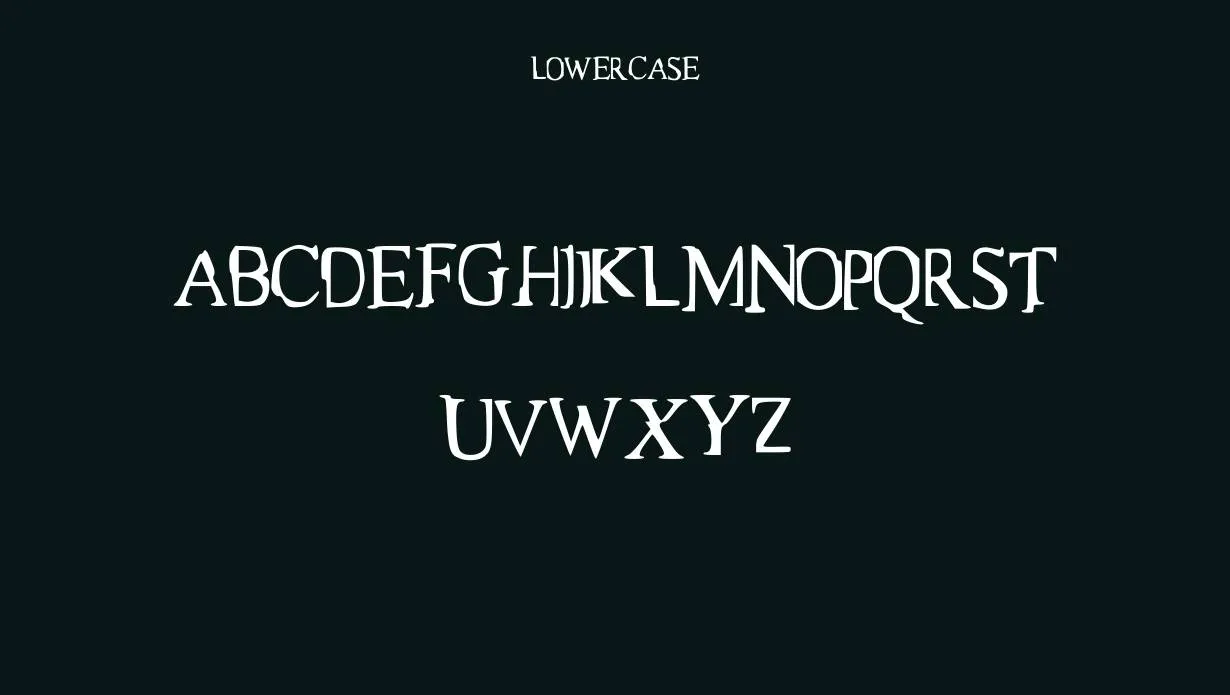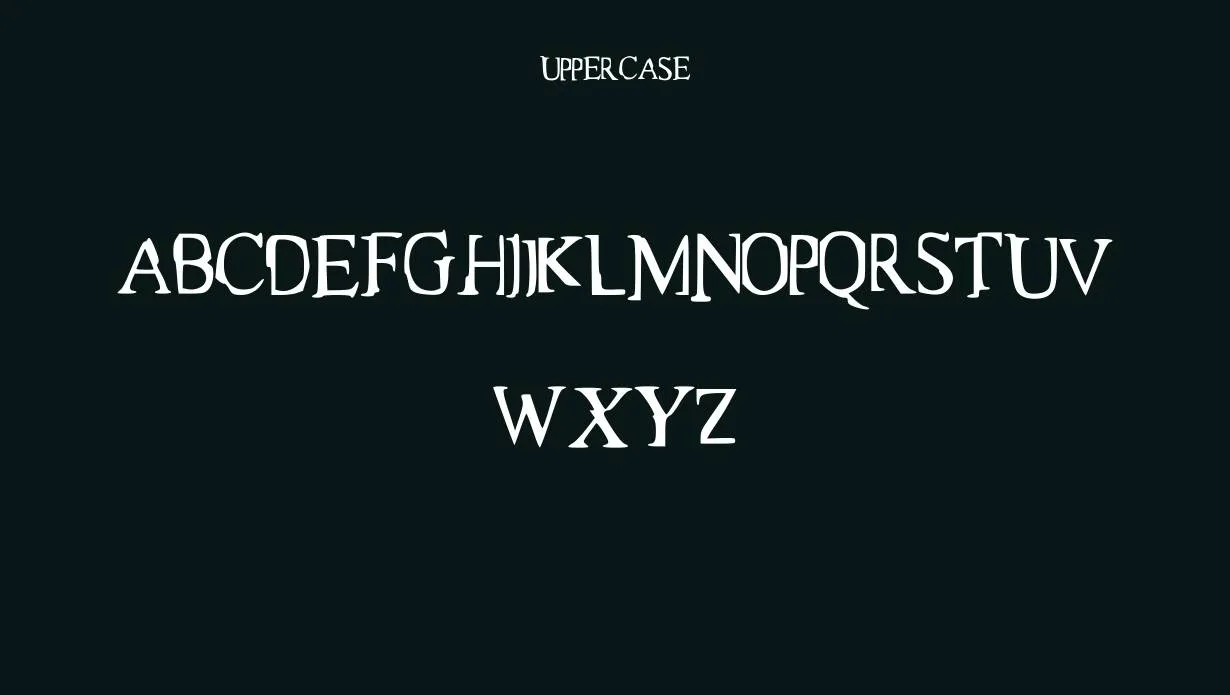
Matrix Font is a Fancy font that is the original typeface used in the movie poster of the same name. This unique typeface was designed by Audun Larsson Klevekand, it has its own distorted and decorative appearance that can bring a stunning and innovative touch to any content.
| Name | Matrix Font |
| Designer | Audun Larsson Klevekand |
This typeface is useful for headlines, subtitles, captions, headers, invites, cards, and many other projects.